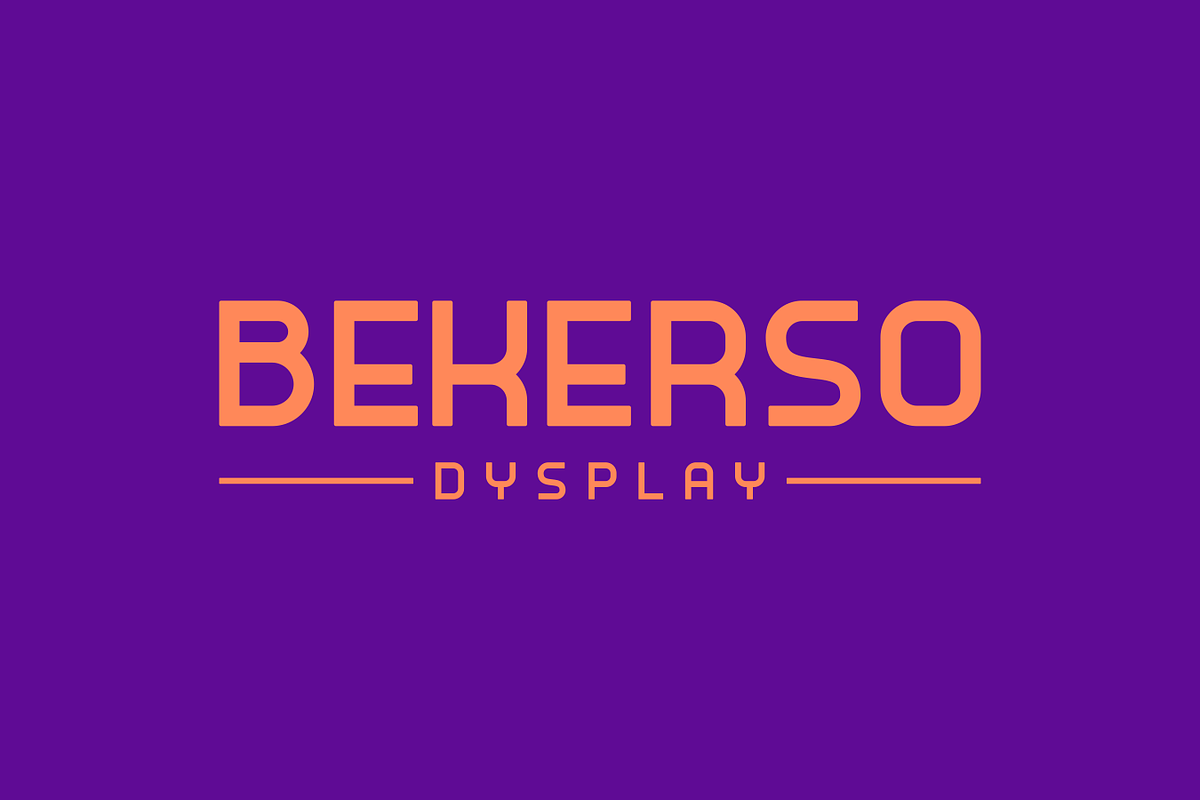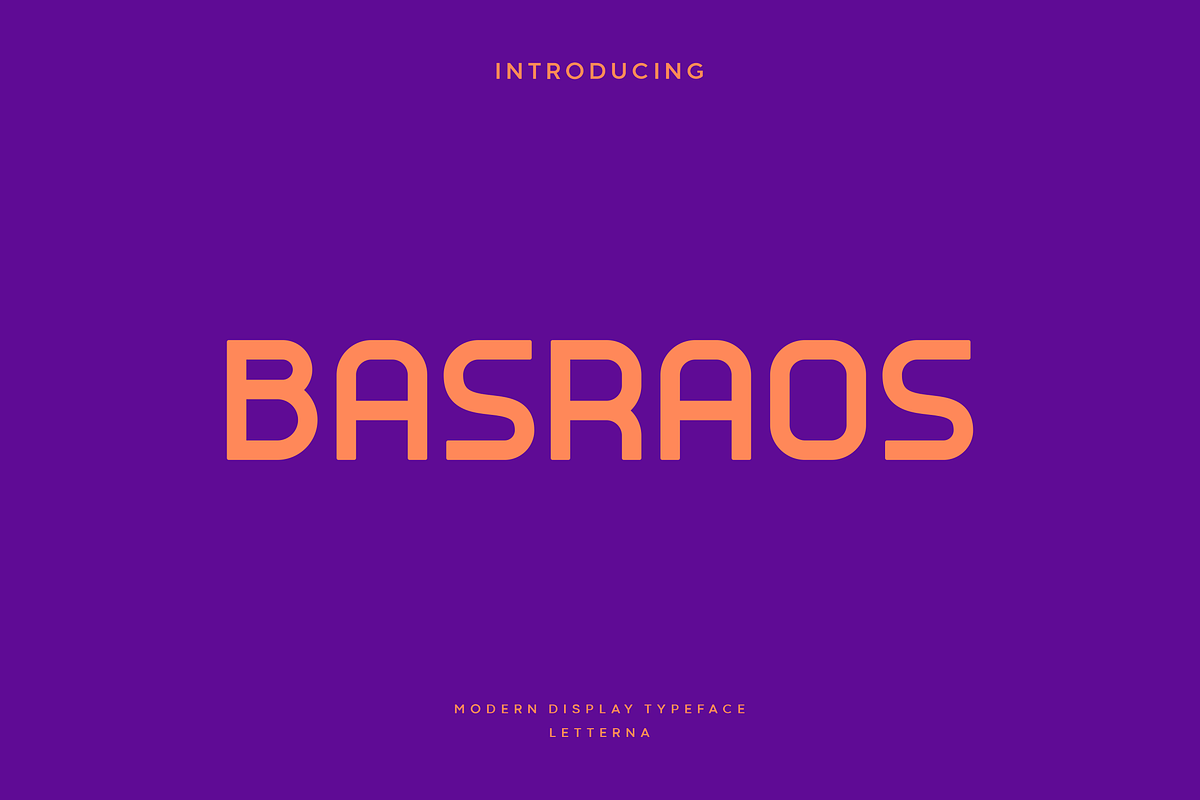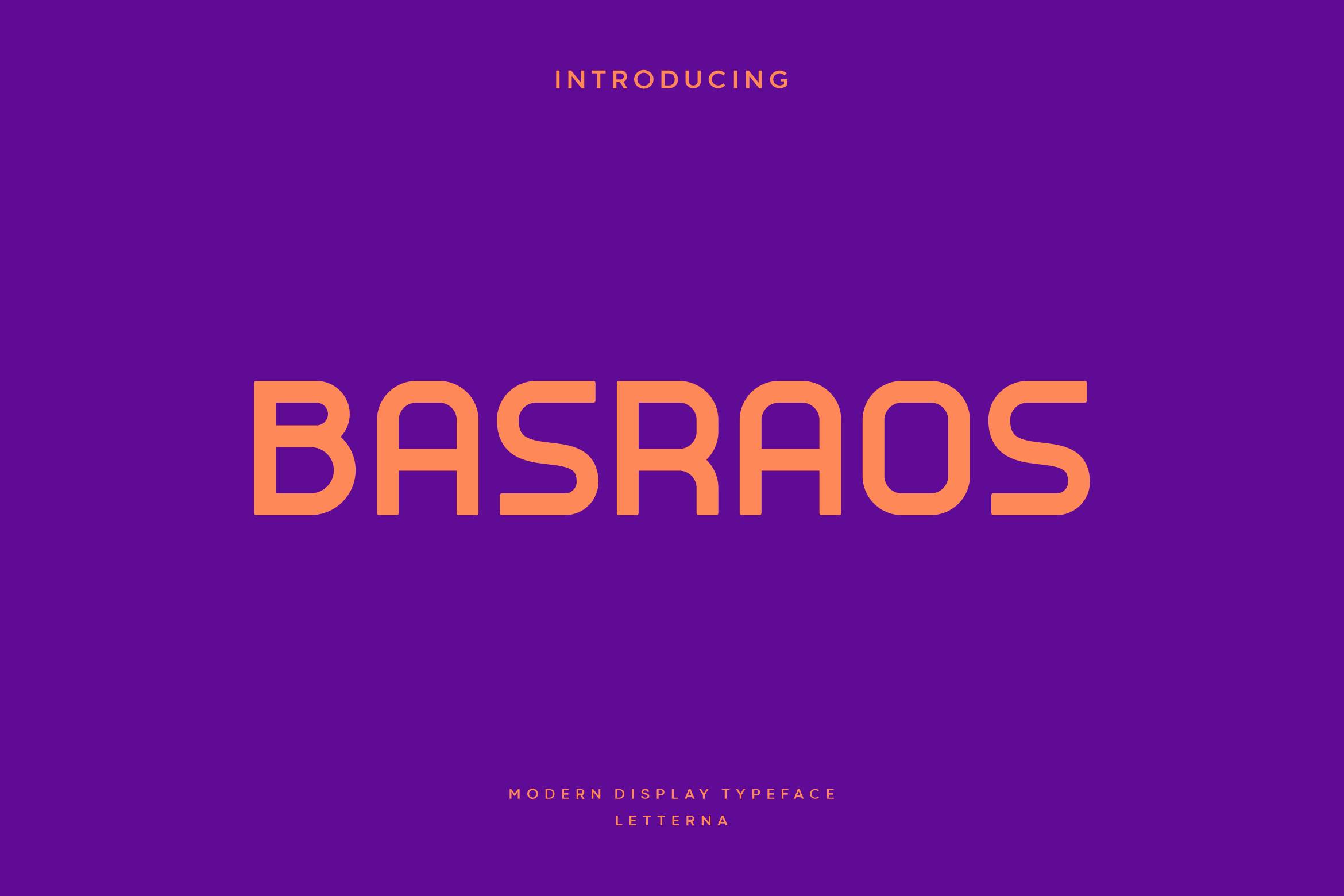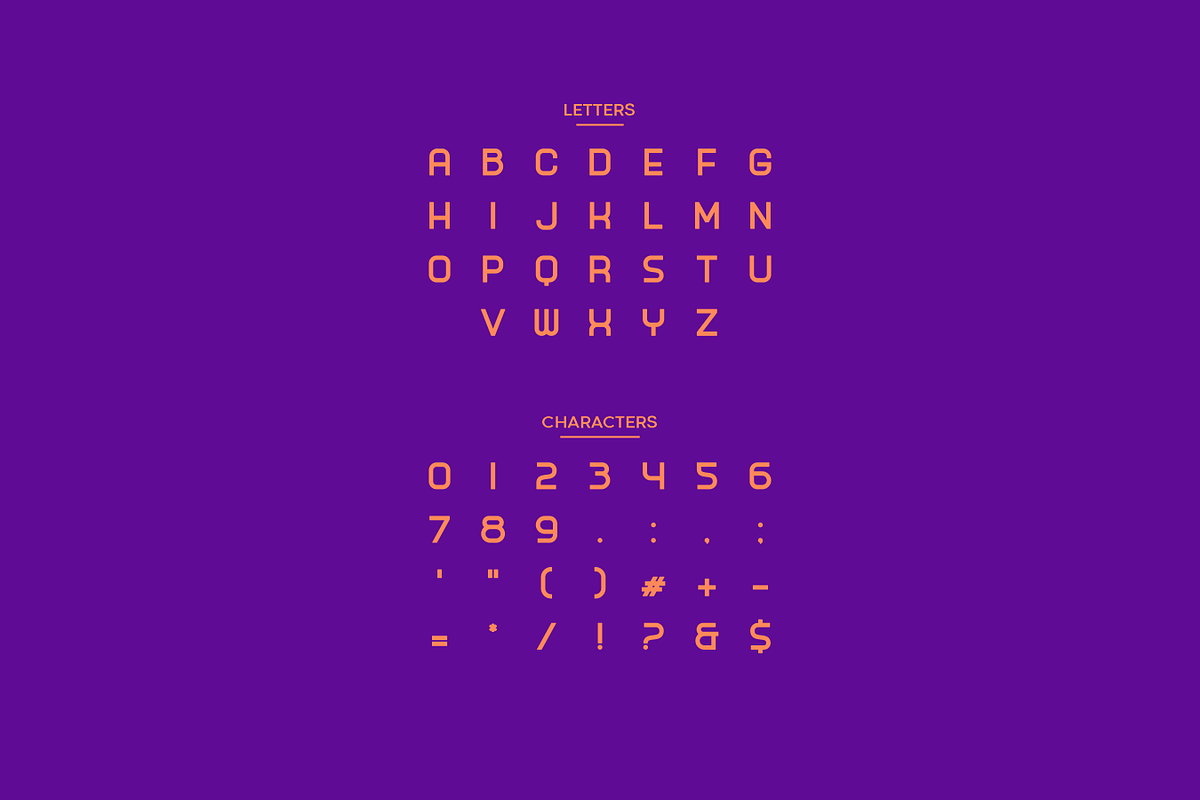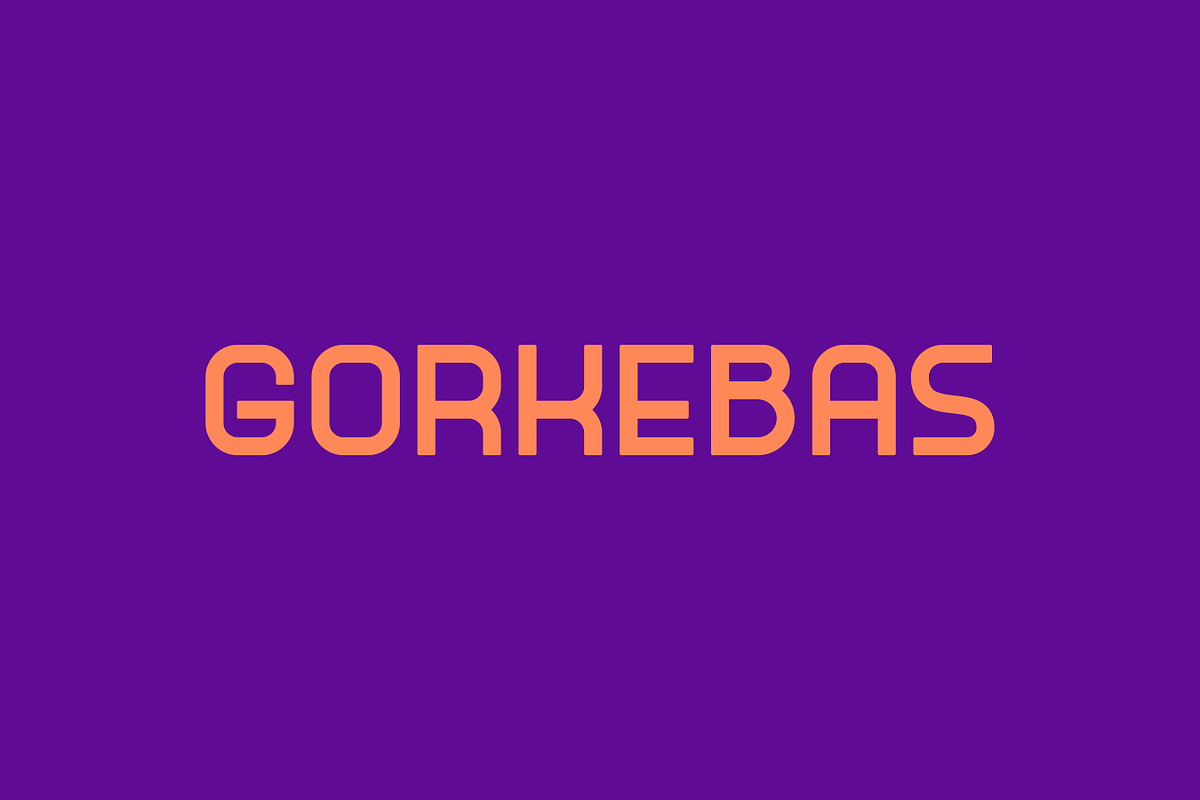
Basraos - Modern Display Typeface
Basraos is a great art deco themed typography for headlines, branding and logo designs. Coming with a simple yet modern and elegant look, the smooth angular shape makes it look classy. It’s great for posters, headlines, and any location where you need large text but have tight space.